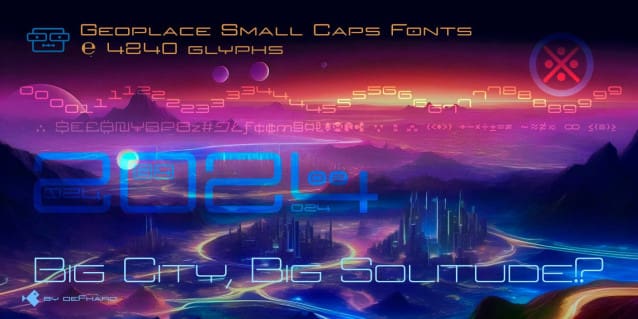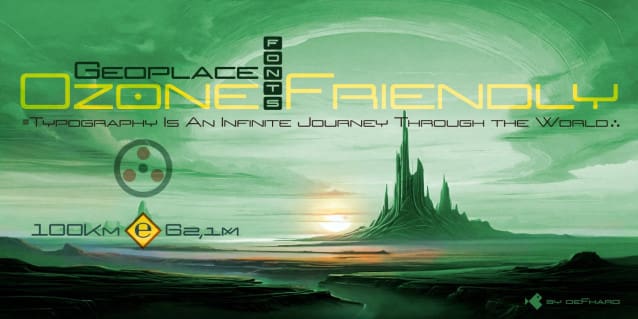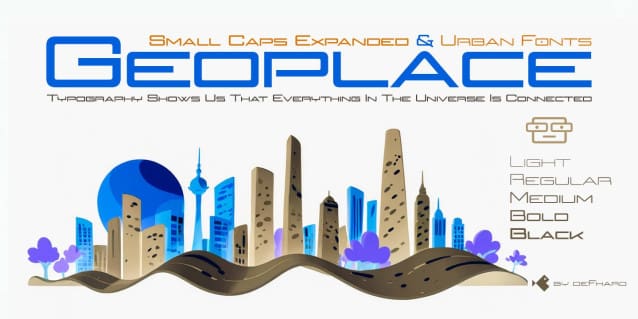
Geoplace Small Caps Font
Geoplace Small Caps Font is a versatile typeface that combines aesthetic appeal and functionality, the expanded proportion creates a feeling of spaciousness and modern elegance, and a unique and cohesive aesthetic.
Font is offered in five weights, from thin and elegant to solid and powerful, along with advanced Open Type features and alternative letter and number options.